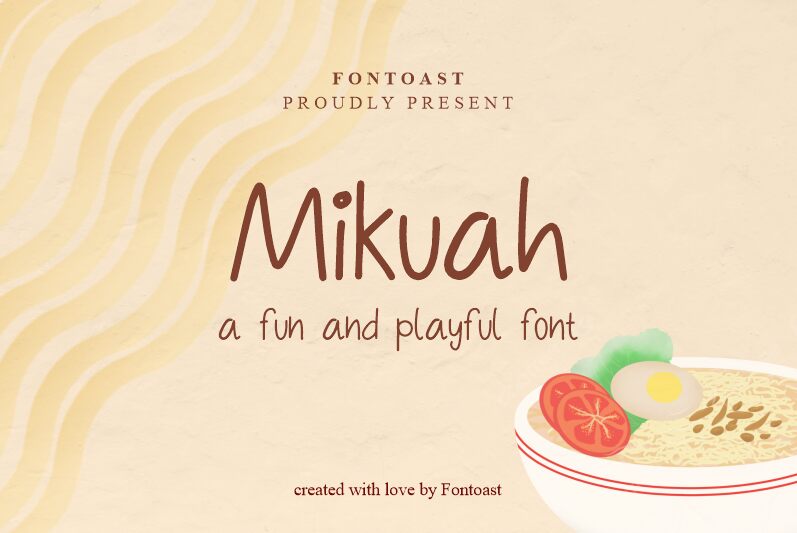
Mikuah font, crafted by Fontoast Studio, is a captivating handwritten typeface that brings a personal and organic touch to any design. Its playful strokes and natural flow evoke a sense of creativity and spontaneity, perfect for projects that require an approachable yet stylish feel.
Ideal for branding, social media graphics, or invitations, this free font adds a unique flair to your visual content. Available for download, Mikuah effortlessly combines charm with functionality. Whether you're designing logos or crafting digital art, Mikuah's distinctive handwritten aesthetic will enhance your project's visual appeal.